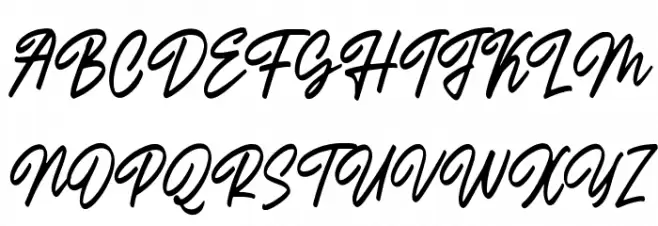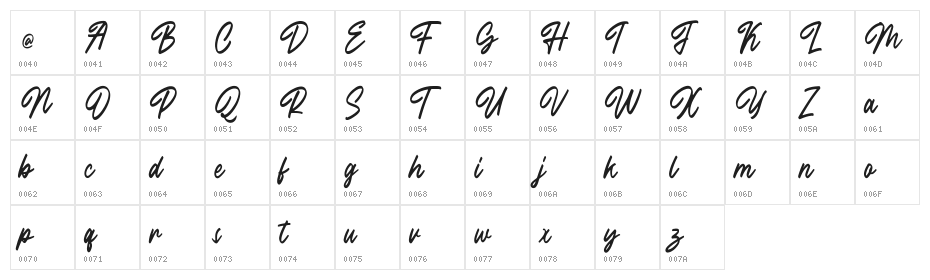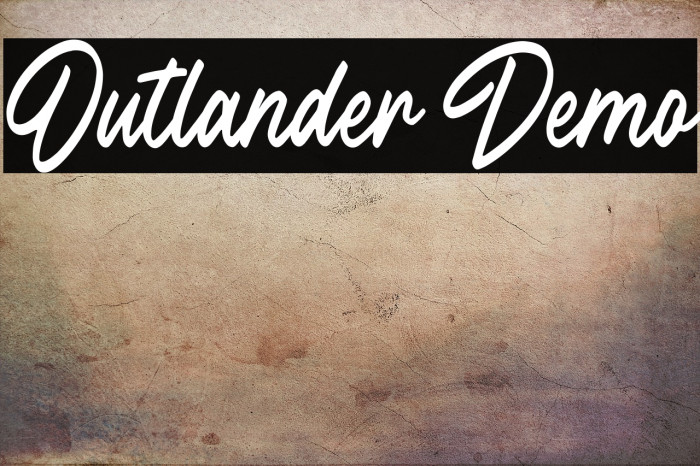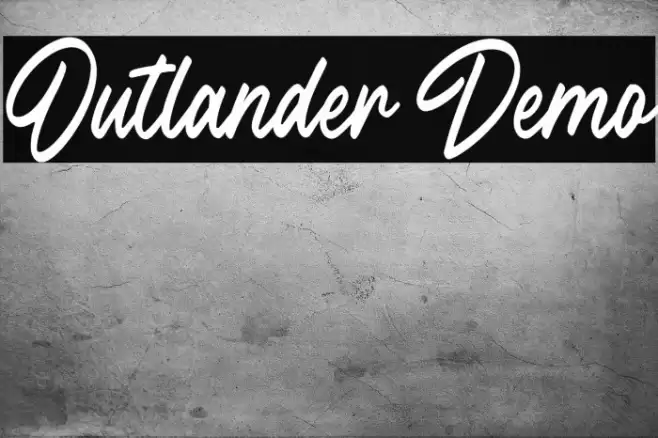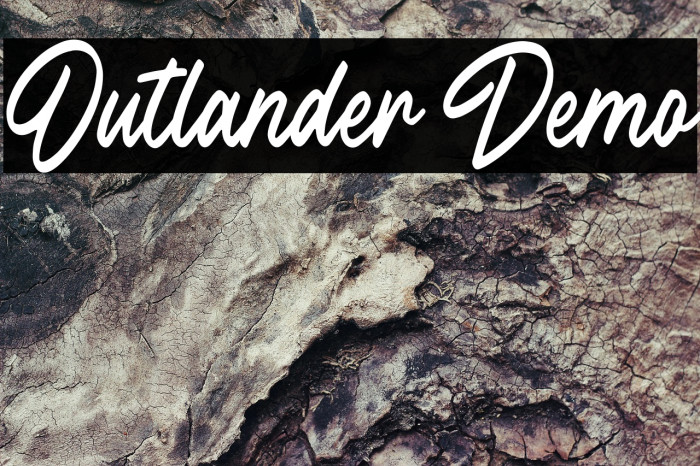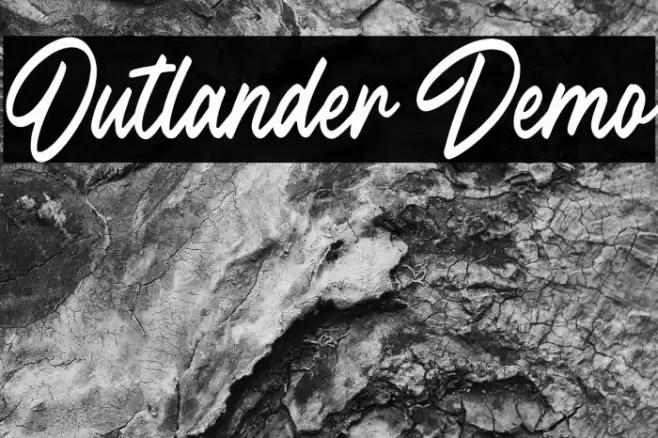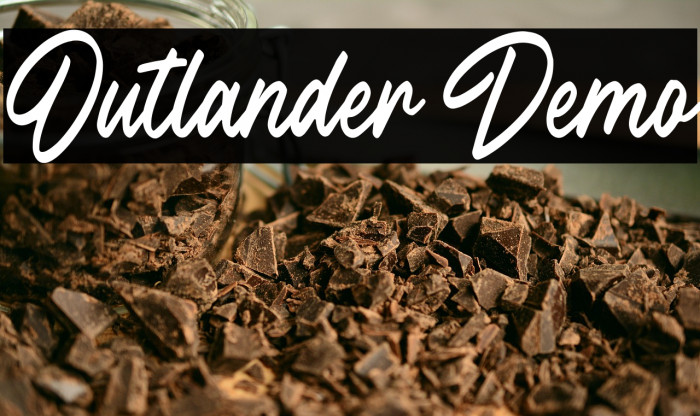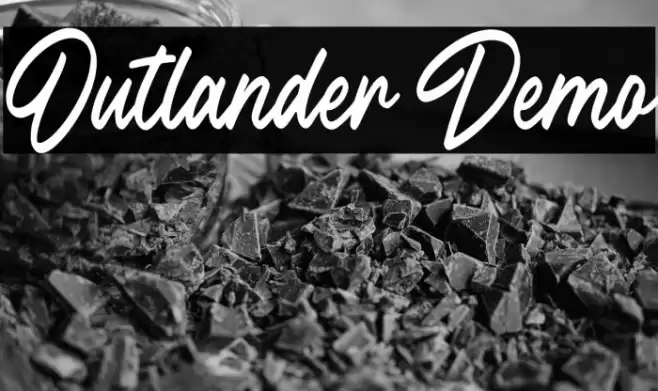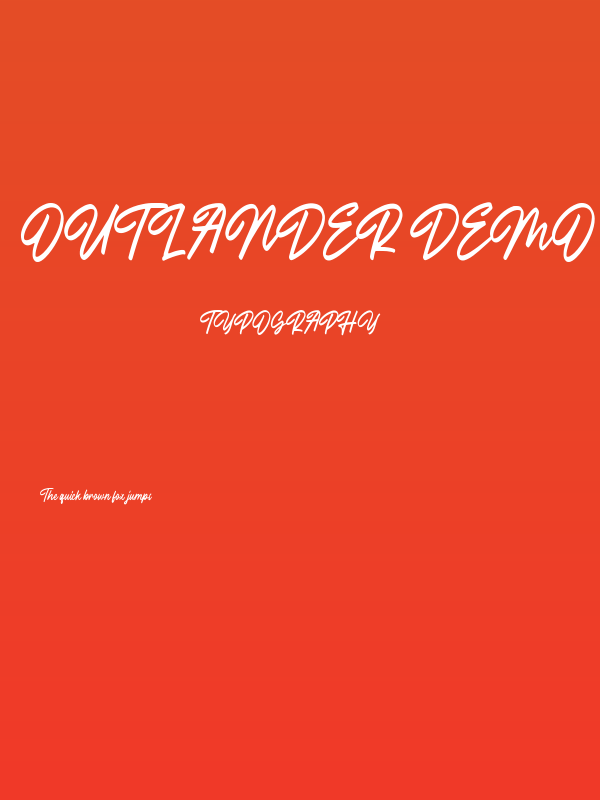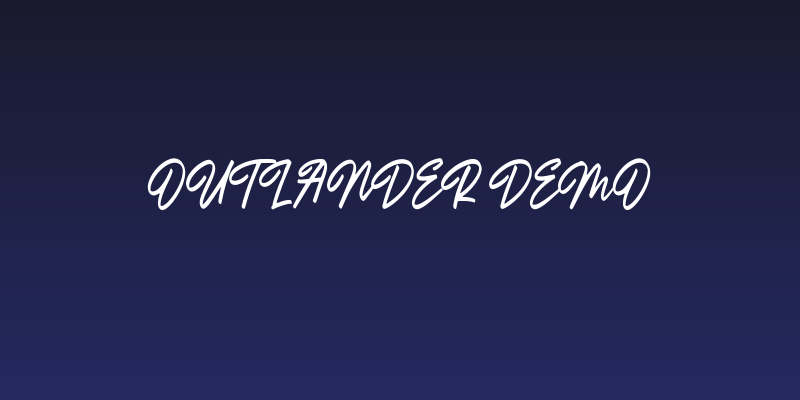
Outlander Demo Font
Outlander Demo Description
This font exudes a dynamic and flowing script style, characterized by its elegant cursive letters that mimic natural handwriting. The uppercase letters are bold and sweeping, with a consistent slant that adds a sense of motion and fluidity. The lowercase letters maintain this fluidity, featuring smooth curves and connected strokes that enhance readability while preserving an artistic flair. The font's design is both modern and timeless, making it suitable for a variety of creative applications. Its bold presence and stylish appearance make it ideal for projects that require a touch of sophistication and personality.
| Proposed Projects | Ideal for wedding invitations, branding, logos, and social media graphics. |